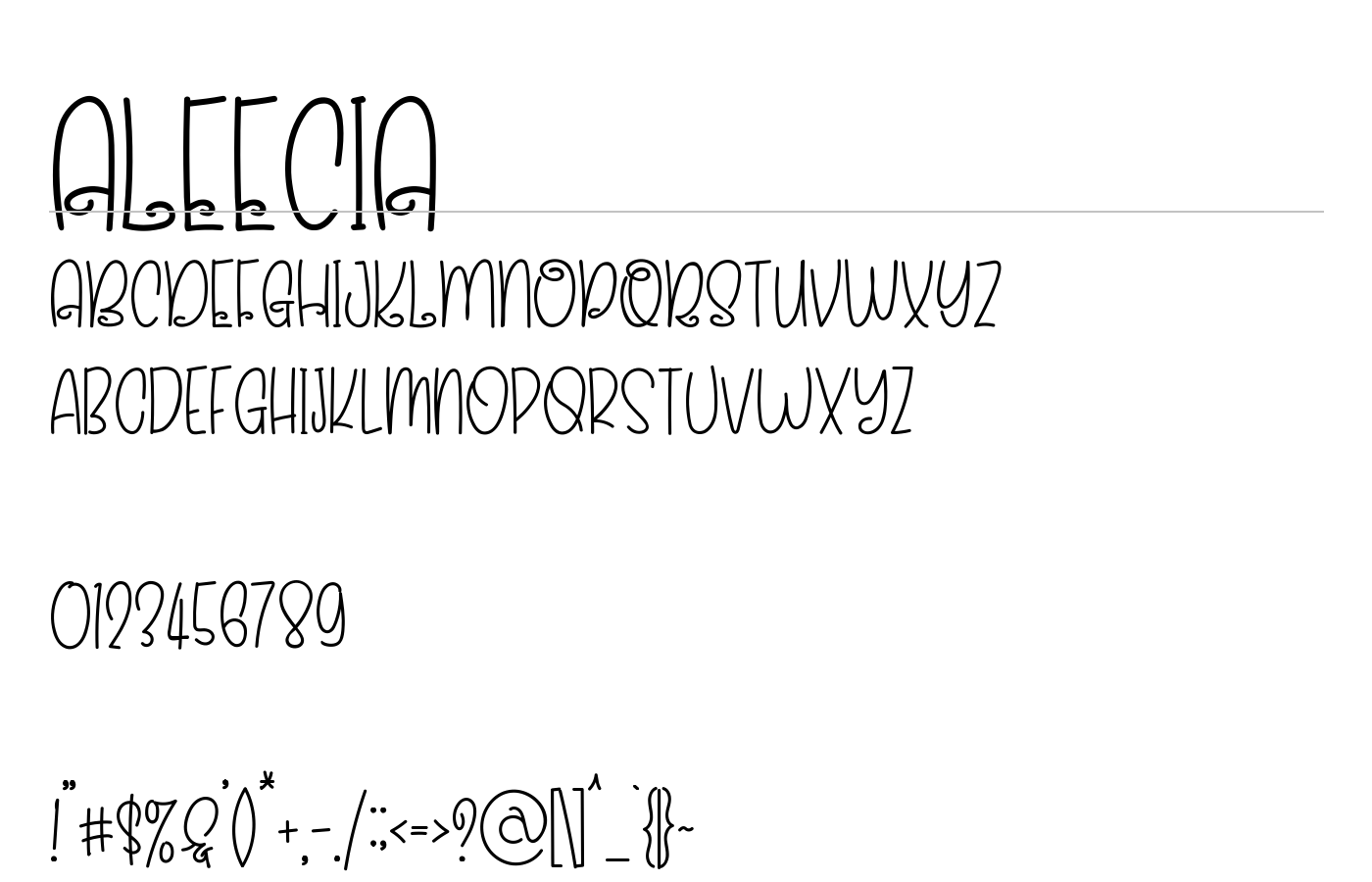
ALEECIA is a whimsical, narrow handwritten font with playful swirls and curls that add a unique charm to its tall, delicate letterforms. Its light weight and quirky character shapes make it perfect for creative projects, branding, or invitations that want to convey a fun, informal, and artistic vibe. This font stands out in designs where personality and a handcrafted feel are key.
ALEECIA Font
About ALEECIA Font
| Designer | Vunira Design |